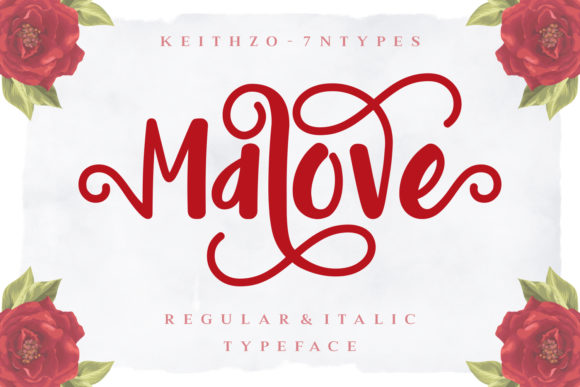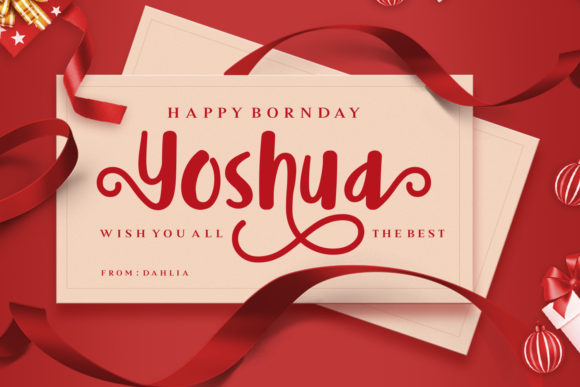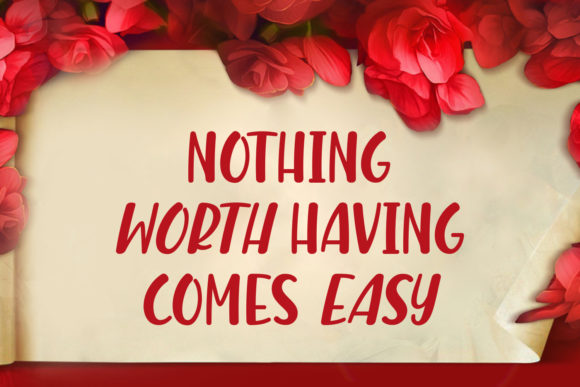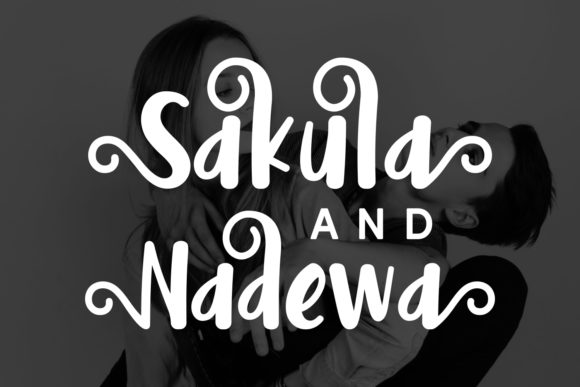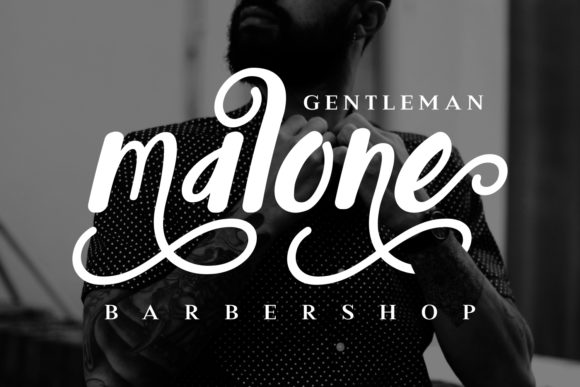
Malove Font
About Malove Font
The Malove is a striking script font. It’s bold letters have a fun and playful feel, and include some amazing swashes.
Included are a regular and italic version, which can be combined perfectly.